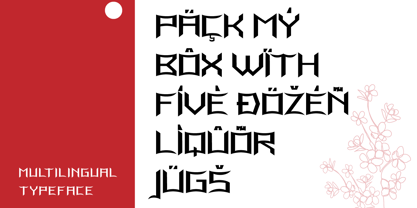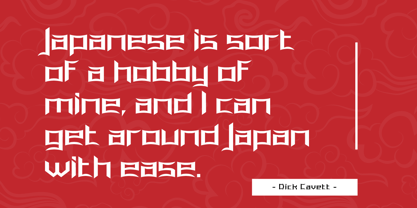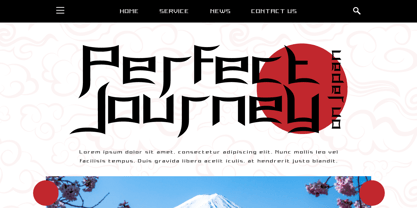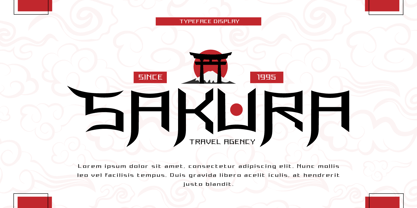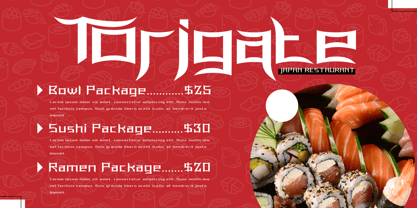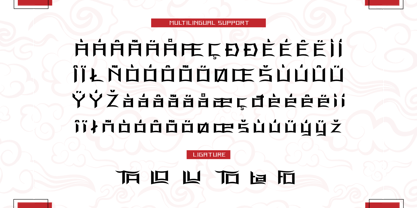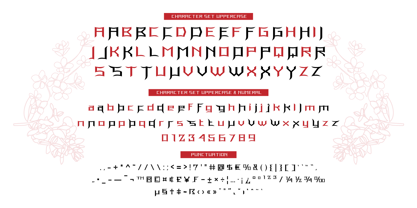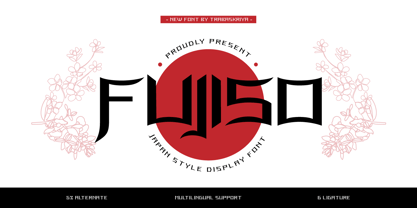
Fujiso
by Trabas Kriya
The Fujiso Font Family was designed by Murozakul Akhsan and published by Trabas Kriya. Fujiso contains 1 styles.
Fujiso is more than just a font, it’s an experience. This Japanese style font captures the elegance and simplicity of Japanese design, bringing a touch of the East to your designs. Its clean, minimalist characters are perfect for creating designs with a Japanese aesthetic, whether it’s a sushi restaurant menu or a zen-inspired logo. With Fujiso, you’re not just designing, you’re transporting your audience to another world.